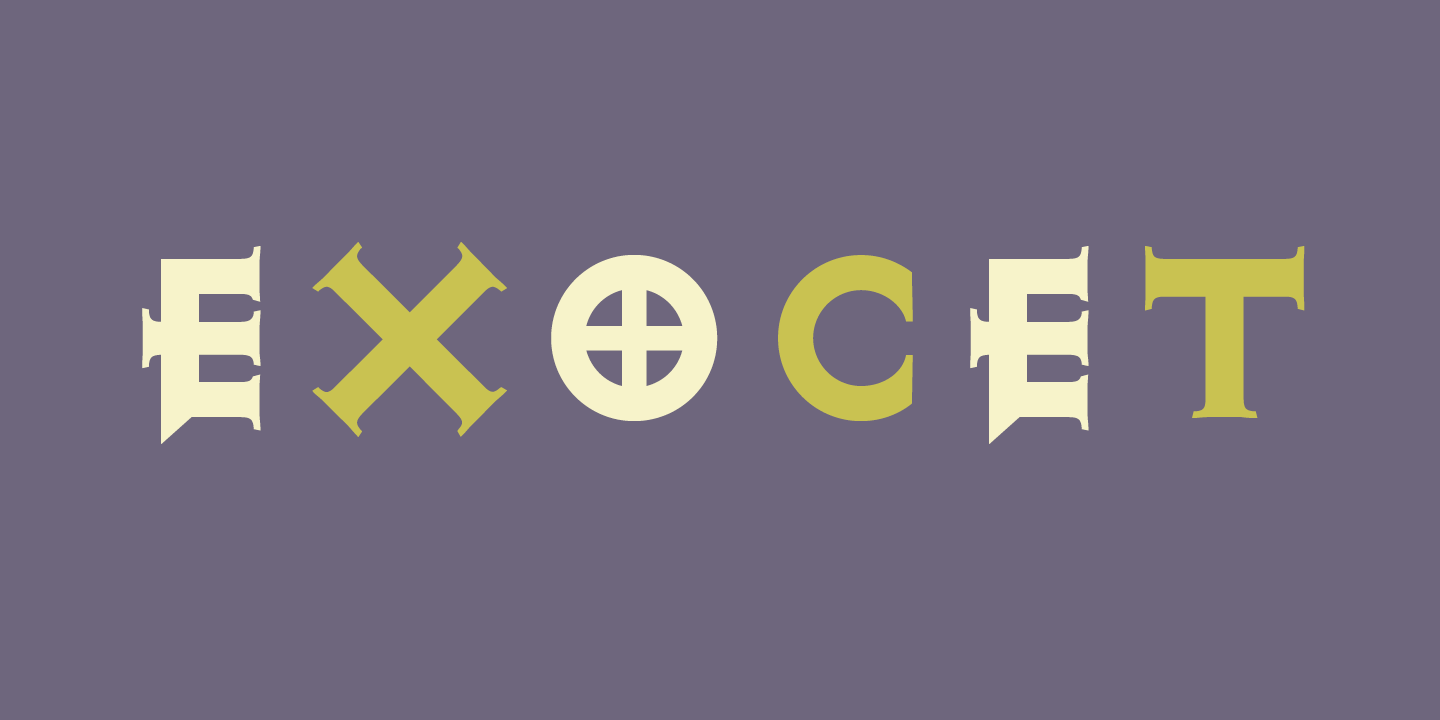
Exocet Font Free Download provides designers with a powerful typography solution that combines bold geometric strength with distinctive character for impactful design applications. This commercial font requires purchase for business use, but you can download it for free for testing purposes to evaluate its commanding presence in your creative projects.
Exocet Font demonstrates remarkable versatility across numerous design applications including military branding, action movie titles, gaming interfaces, sports team logos, industrial packaging, tactical gear marketing, adventure tourism materials, and high-energy entertainment communications. Its bold character makes it particularly effective for projects requiring authoritative visual impact while maintaining excellent readability, ensuring your designs convey strength and reliability across both digital platforms and dynamic print applications.
What makes Exocet Font truly exciting is its distinctive fusion of geometric precision and military-inspired aesthetics that creates compelling communications for action-oriented brands. The font features carefully engineered letterforms that incorporate sharp angles and bold proportions reminiscent of stencil lettering and tactical marking systems. Its distinctive character construction combines industrial functionality with contemporary design sensibilities, creating text that feels both powerful and professional. The font's optimized spacing and robust character relationships ensure superior performance across various sizes while maintaining the characteristic strength that defines its commanding personality.
Exocet Font offers a comprehensive type family designed to support diverse bold design requirements. The family typically includes regular, medium, bold, and heavy weights, along with corresponding condensed variations that provide complete flexibility for dynamic typography compositions. Many versions feature extended character sets with military-inspired symbols, tactical elements, and specialized glyphs that enhance authentic action-oriented aesthetic applications.
The Exocet Font Free Download represents outstanding value for designers working on action-focused and military-themed projects across multiple sectors. Whether developing gaming brand identity, creating sports marketing materials, designing tactical equipment packaging, or producing adventure entertainment communications, this font delivers consistent impact and memorable visual authority. Its bold characteristics make it particularly effective for industries including gaming, sports, outdoor recreation, and action entertainment sectors seeking to communicate power and performance.
For maximum effectiveness, Exocet Font combines powerfully with high-contrast color schemes and dynamic visual elements that reinforce its bold message. Its commanding presence excels in headline applications while maintaining excellent impact in logo and branding contexts. The font's tactical sophistication and bold appeal make it an essential tool for creating authoritative communications that resonate with audiences seeking strength and adventure.